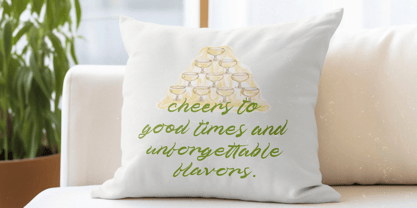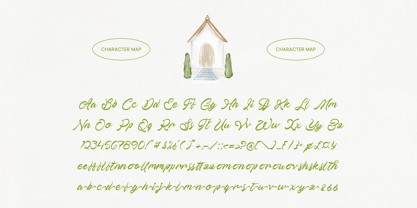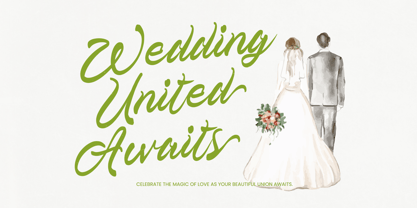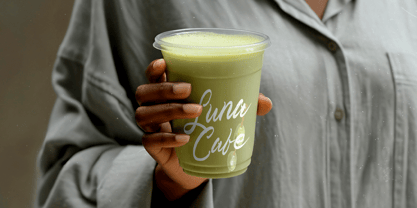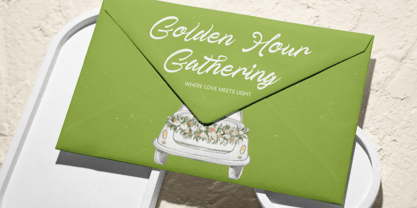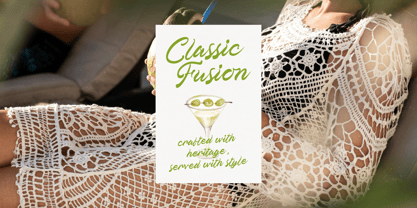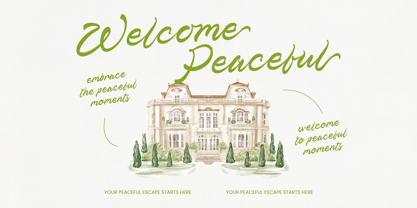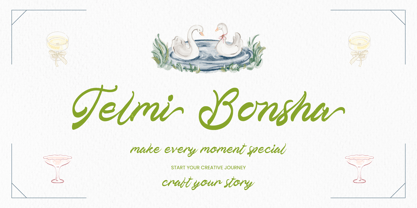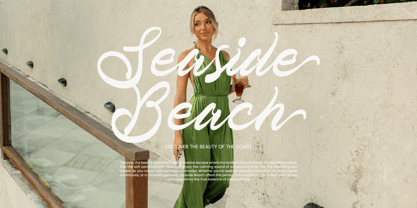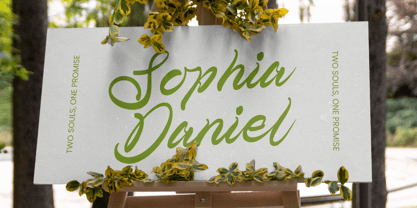
Telmi Bonsha
La familia tipográfica Telmi Bonsha fue diseñada por Heru Utama Putra y publicada por Stylishtype Studio. Telmi Bonsha contiene 2 estilos y opciones de paquete familiar. Más información sobre esta familia
Elevate your creative vision with a typeface that embodies sophisticated artistry and timeless grace. Telmi Bonsha - Elegant Brush Script is a masterfully crafted hand-drawn script that balances organic textures with a fluid, rhythmic motion. Its natural brush strokes provide a bespoke feel, making every word appear as if it were meticulously penned by an expert calligrapher. This font is the definitive choice for designers seeking to infuse their work with a sense of authenticity and high-end craftsmanship.